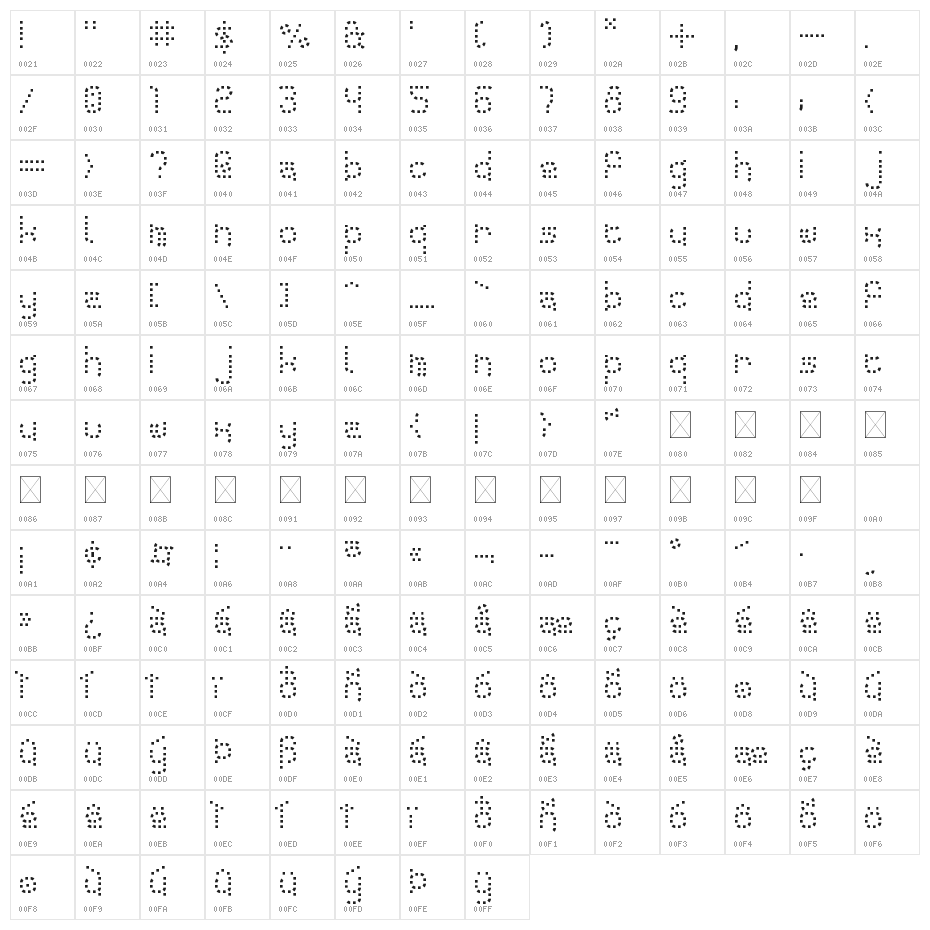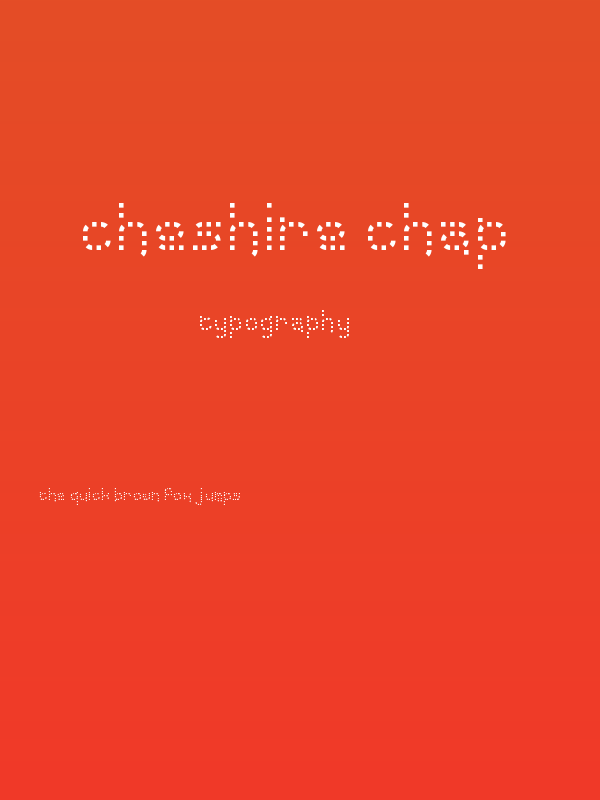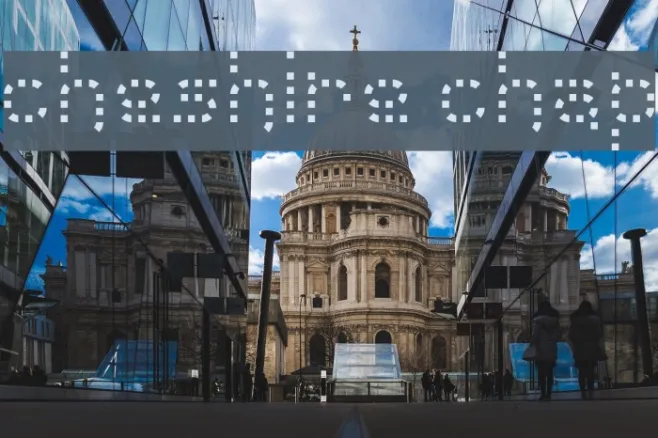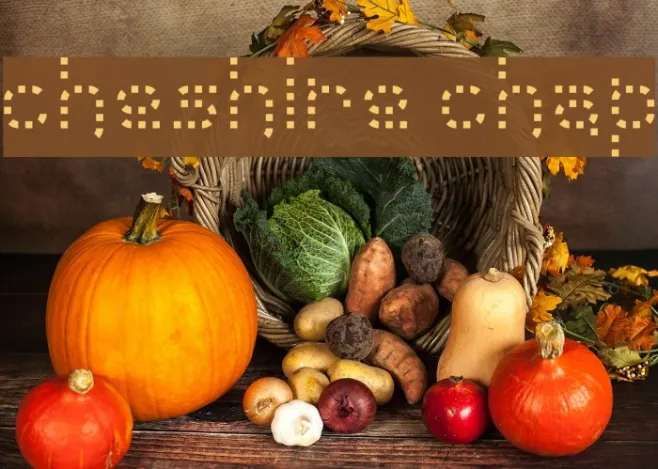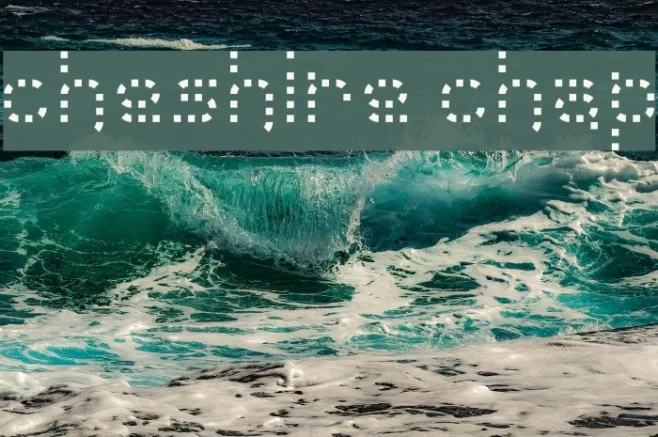
Cheshire Chap Font
Cheshire Chap Description
This font features a unique dotted design, where each character is composed of evenly spaced dots that form the shape of letters and numbers. The style is playful and modern, offering a distinct visual appeal that stands out. The characters maintain a consistent size and shape, ensuring readability despite the unconventional design. The font includes both uppercase and lowercase letters, numerals, and a selection of special characters, all adhering to the dotted motif. This design choice gives the font a decorative and artistic flair, making it suitable for creative projects.
| Proposed Projects | Ideal for creative projects such as posters, invitations, and branding materials where a unique and artistic touch is desired. |